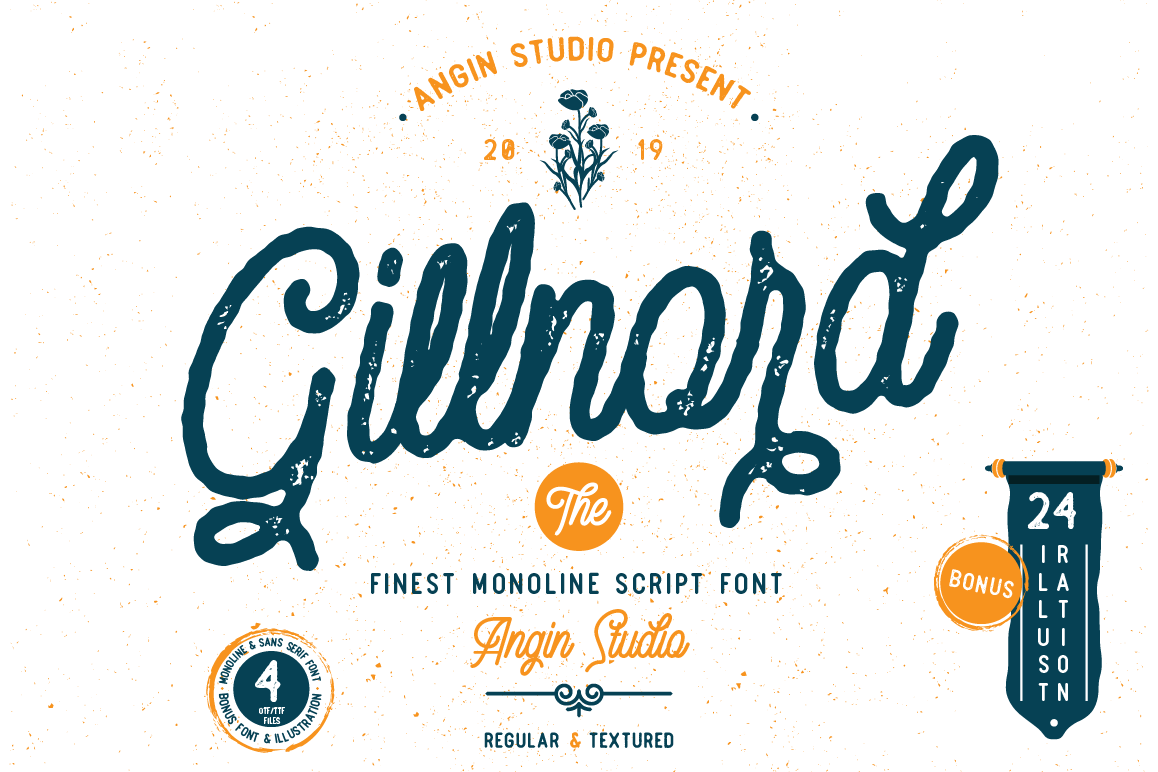
Gillnord Monoline Script extras illustration
Our newest Font with vintage style and adventures
Let us introduce you to Gillnord
Gilnord is a vintage monoline script based on our hand lettering. this font created very carefully with perfect precision for every single curves. Gillnord have a unique shape that make it different and eye catching, also it will make your design have more aesthetic look.
Gillnord can be used as a logo design, branding, packaging, poster and other design with a vintage touch. Gillnord features include Ligatures, discretionary ligature, stylistic alternates, contextual alternate.